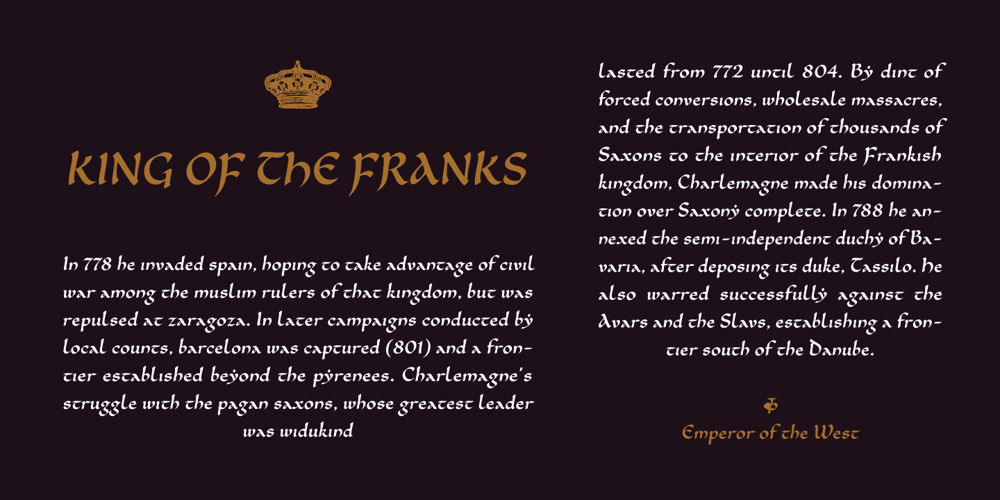
Cal Carolingian Minuscule Font Family was designed by Lazar Dimitrijević and published by Posterizer KG. Cal Carolingian Minuscule contains 1 styles and family package options. Calligrapher Carolingian Minuscule Font is one of the calligraphic group of fonts called “21 alphabets for Calligraphers“. All graphemes are taken from calligraphic pages written in traditional Carolingian Minuscule calligraphic style. This font is ideal for calligraphic sketches or for imitation of ancient manuscripts. It contains all the Latin glyphs.